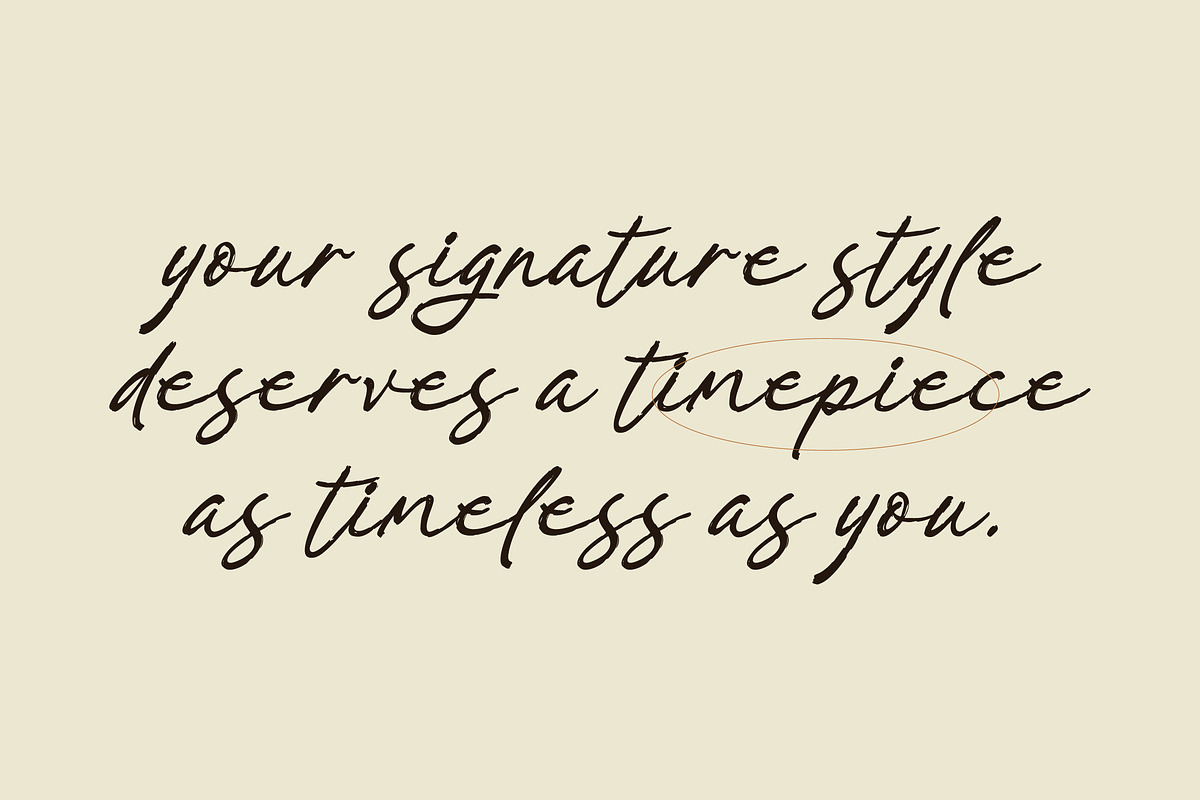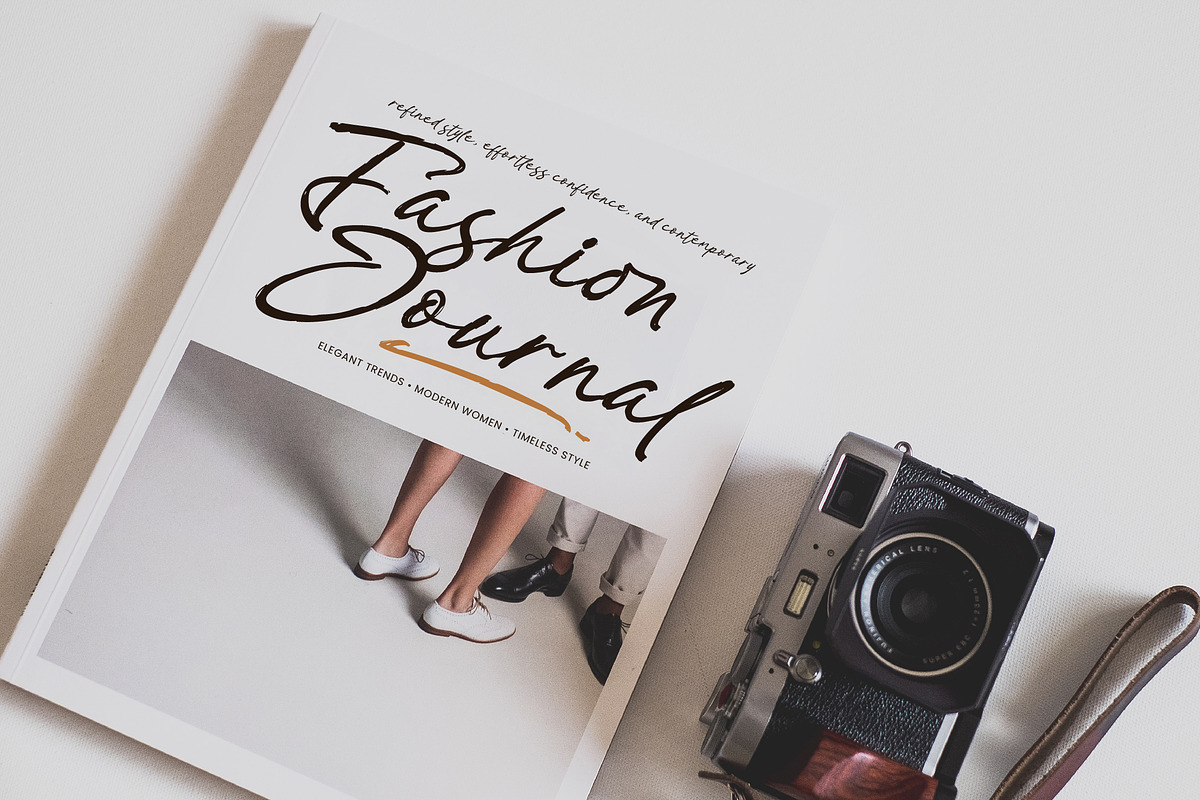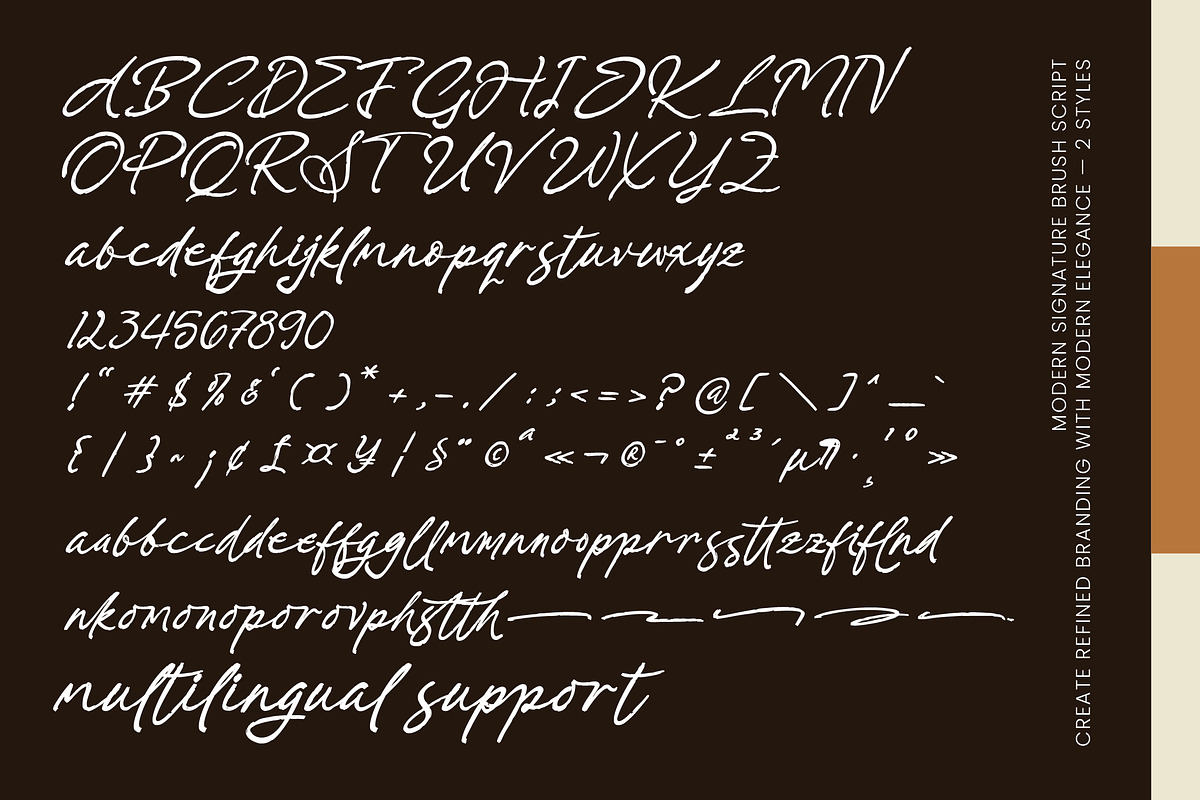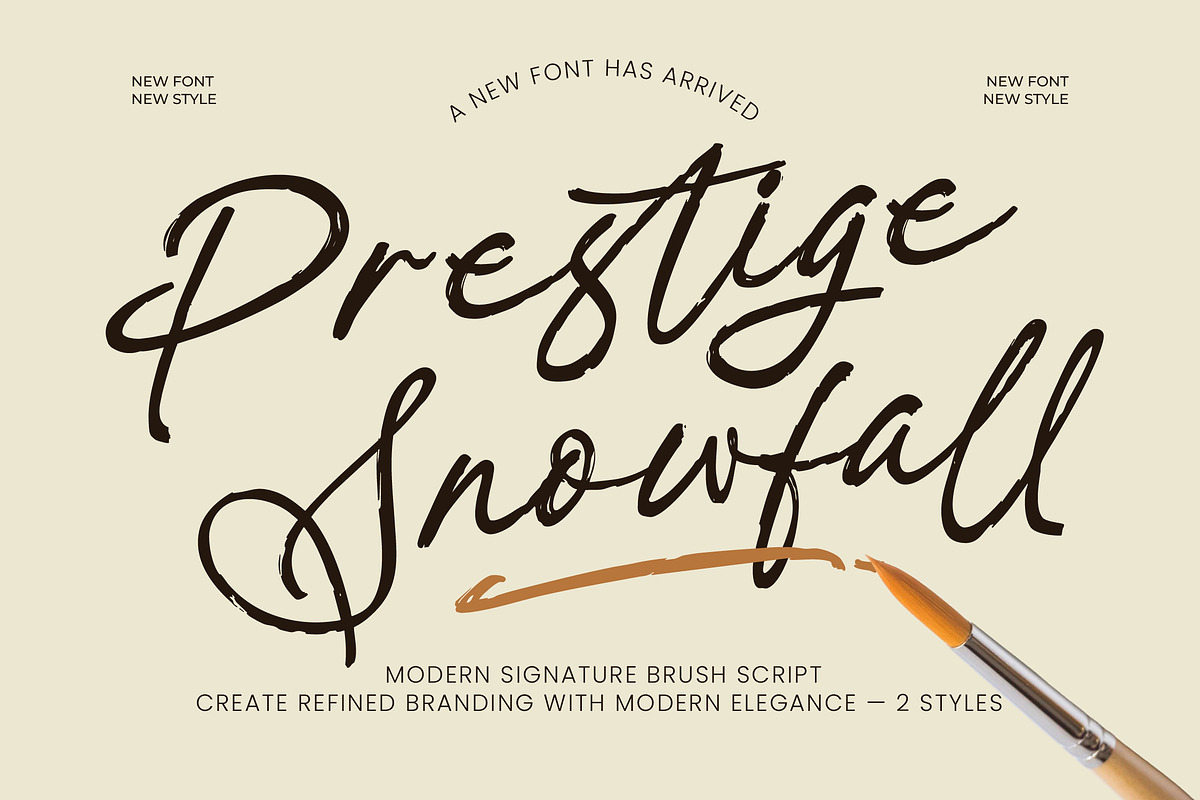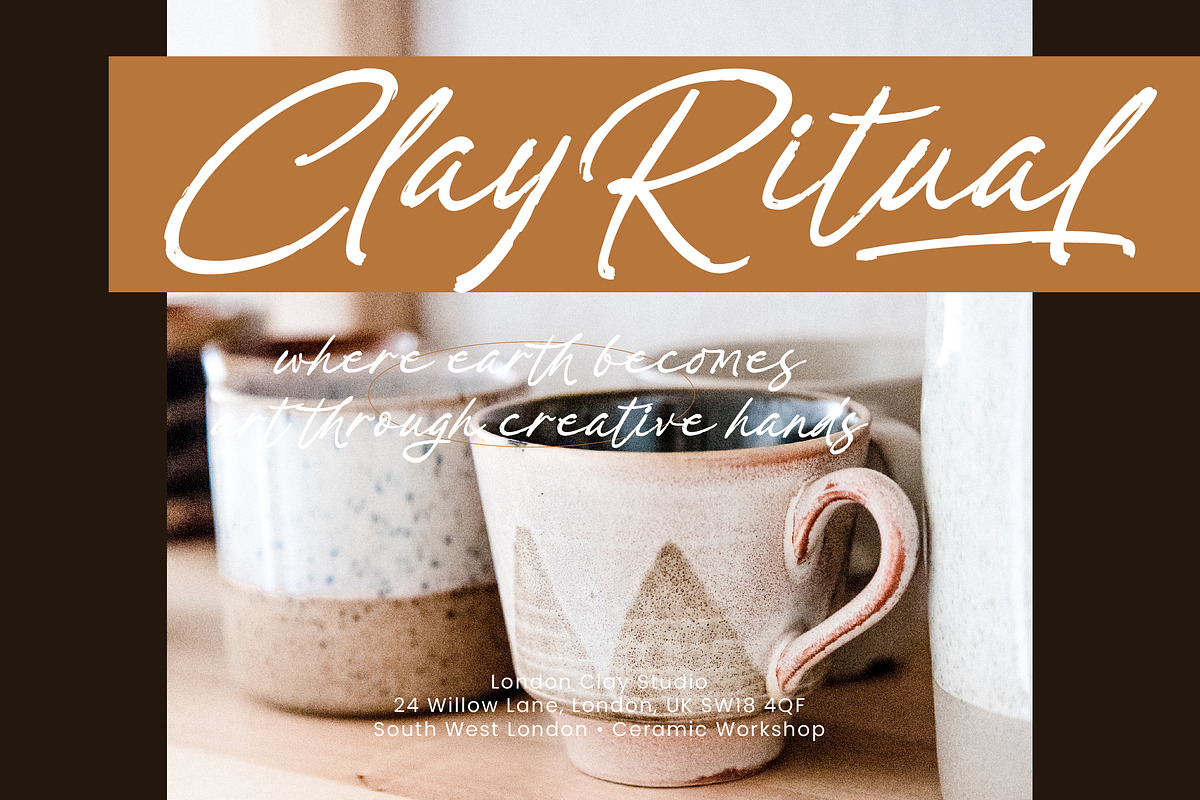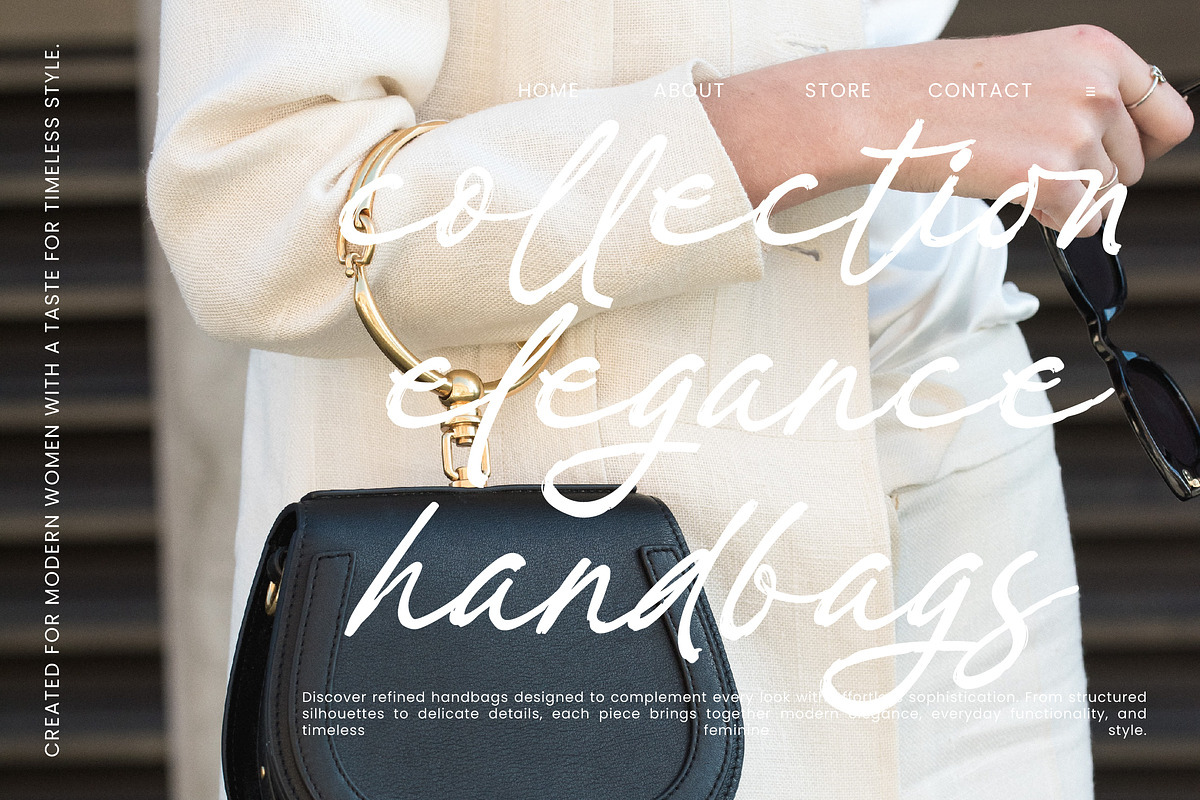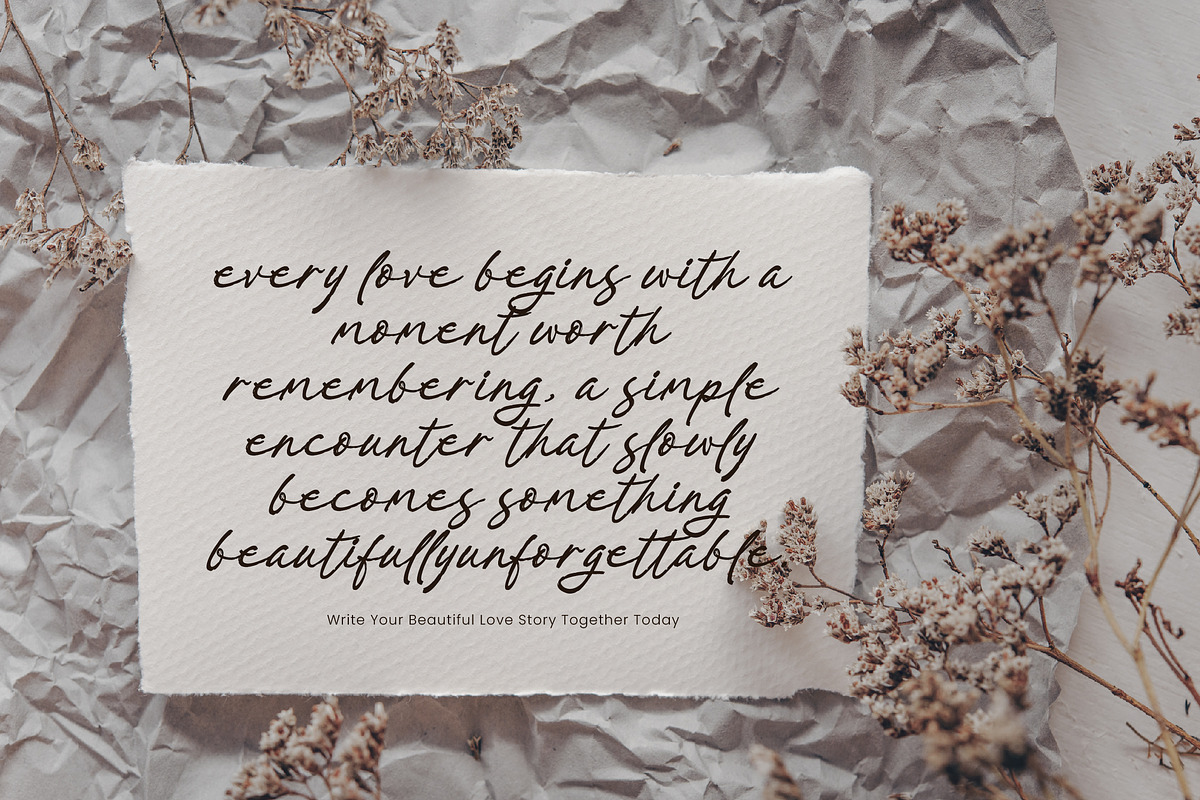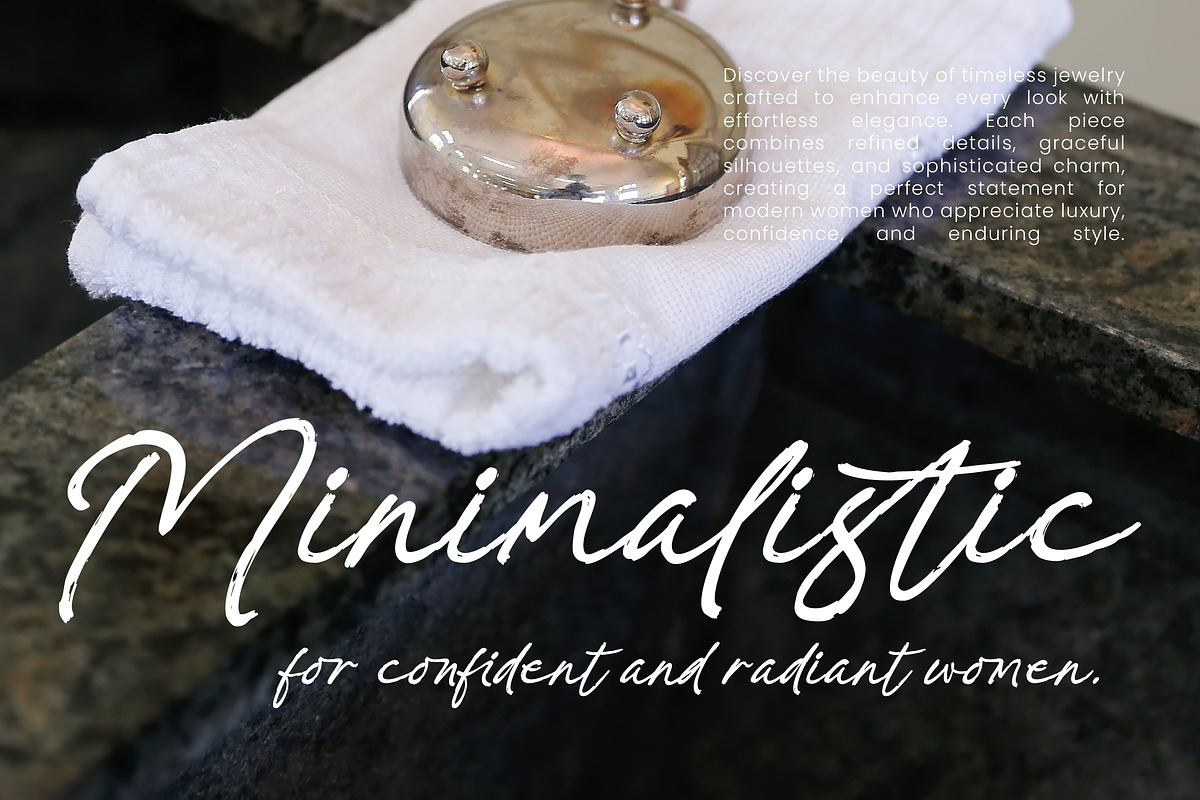
Prestige Snowfall
Prestige Snowfall is a modern signature brush script designed to bring a refined, expressive, and handcrafted character to your creative projects. Combining elegant signature-style letterforms with natural brush textures, it creates a sophisticated look while maintaining an authentic artistic feel.
With its flowing strokes, dynamic swashes, and bold handwritten presence, Prestige Snowfall is perfect for designers looking to create distinctive branding and stylish display typography. The two-style design provides additional flexibility for creating different visual treatments and typography combinations.
Features: • Modern signature brush script • 2 styles for creative flexibility • Bold and expressive brush strokes • Natural handwritten texture • Elegant flowing letterforms • Sophisticated signature appearance • Dynamic swashes and flourishes • Strong visual impact for display use • Suitable for modern branding • Great for both print and digital projects
Prestige Snowfall combines modern elegance with the authentic character of brush lettering. Its expressive strokes and refined signature forms make it a versatile choice for creating memorable logos, sophisticated brand identities, packaging, apparel designs, and eye-catching typography.